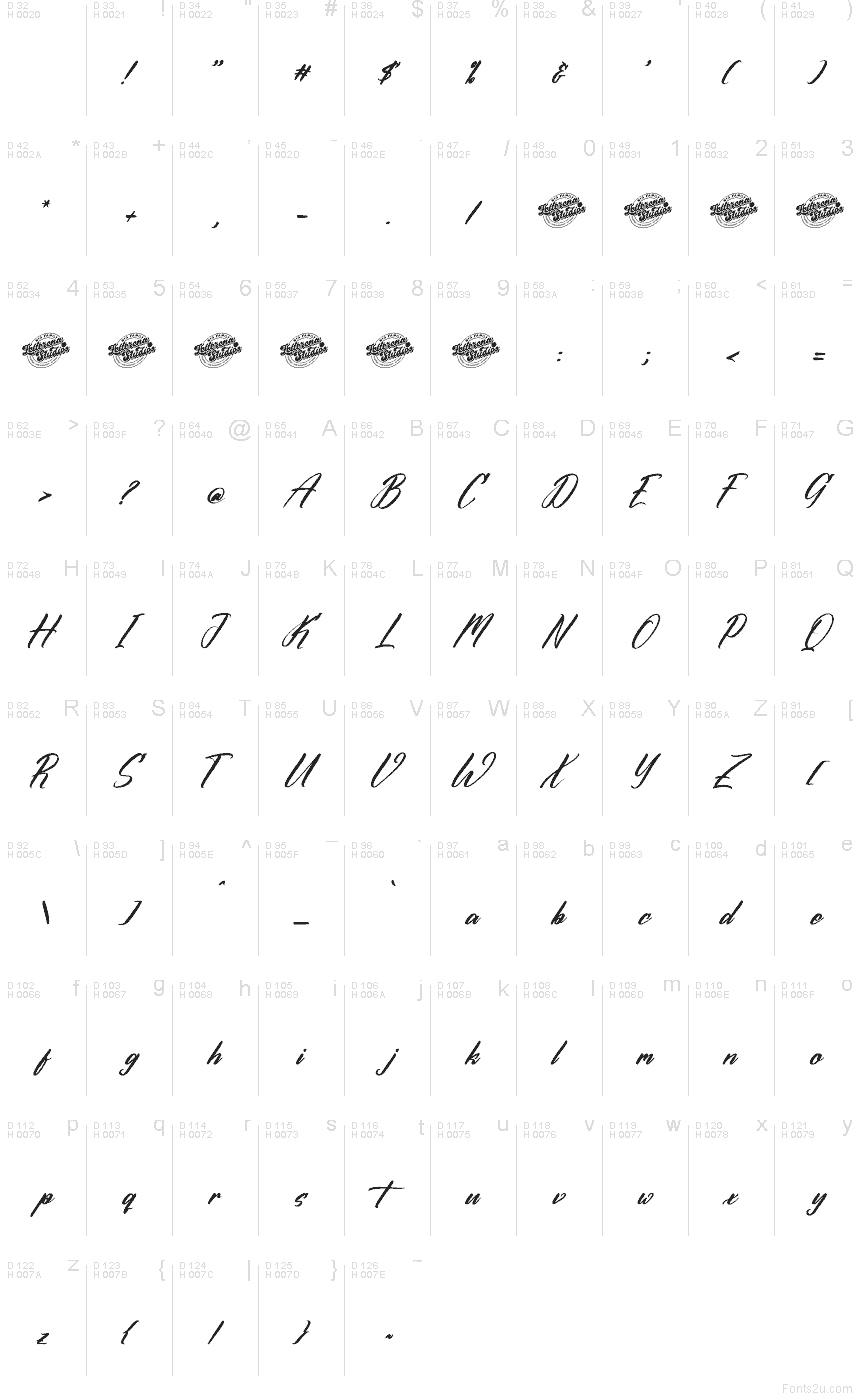
Galimunte Pogteria DEMO VERSION Italic
Galimunte Pogteria Italic font by Letterena Studios is a free handwritten script typeface with a flowing, ink-brushed rhythm that feels quick yet carefully styled. The tall, slanted letters and sweeping connections give every word the look of a confident signature, while the Galimunte Pogteria family’s smooth curves keep it soft and romantic rather than messy.
Using Galimunte Pogteria Italic, you can bring a personal, upscale touch to wedding invitations, logo signatures, beauty packaging, boutique branding, quote posts, and event posters. This free font shines on anything that needs a handwritten flourish with a polished edge. Pair it with a clean sans serif in small caps for supporting text, and let Galimunte Pogteria Italic run larger as the main script headline.